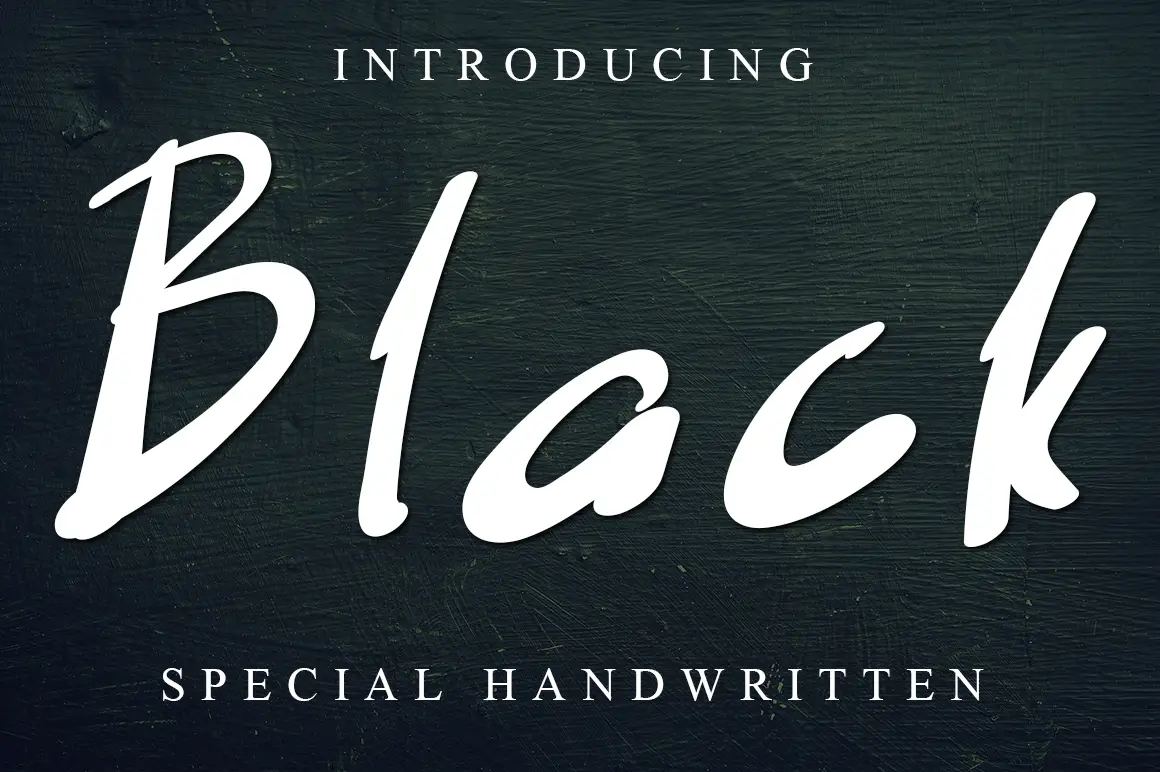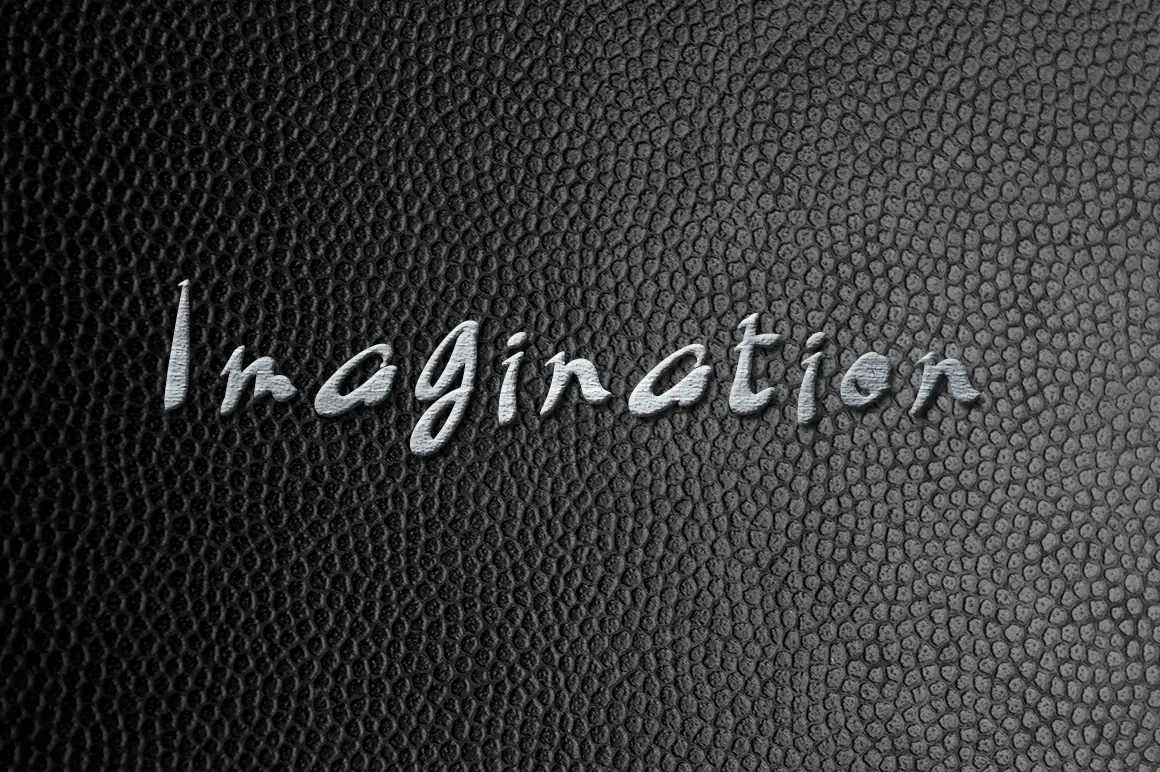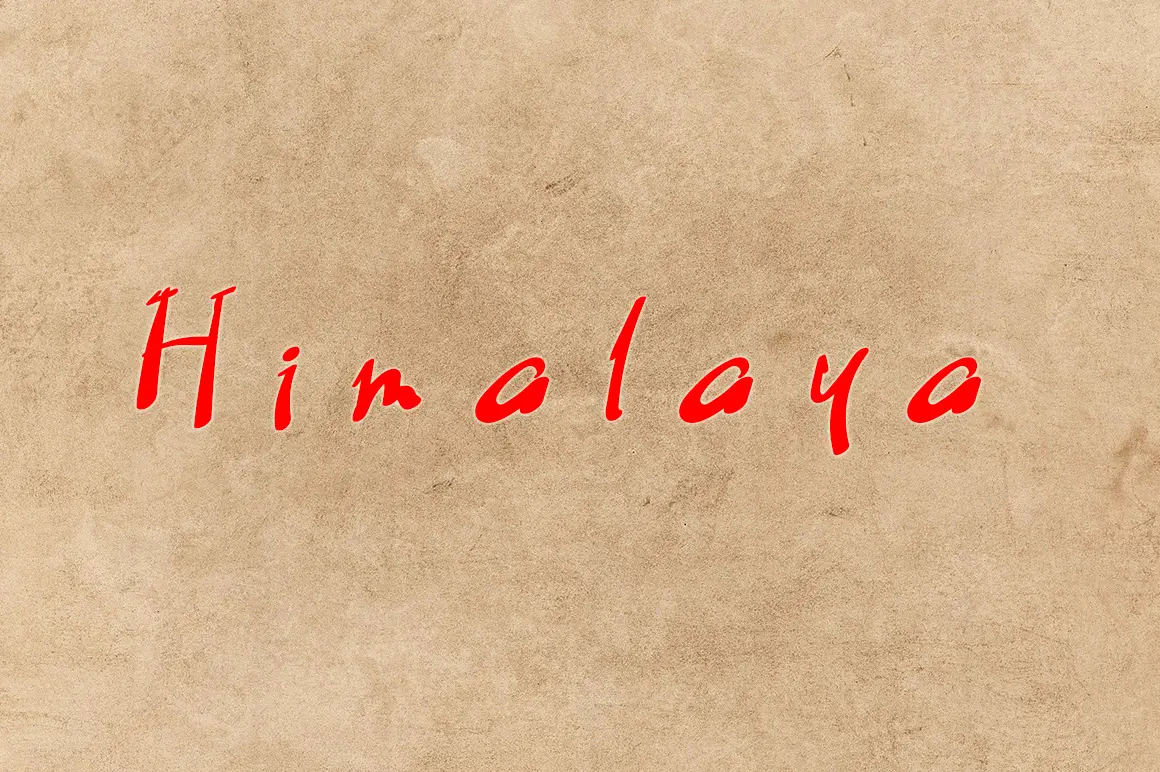
Black Script Font
The Black Script Font is a beautifully crafted typeface that embodies elegance and sophistication. With its flowing curves and stylish letterforms, this font is perfect for a variety of design applications.
• Stylish script design
• Styles: Script
• Ideal for branding, logos, invitations, and greeting cards
• Use in web design for a touch of elegance
• Great for print materials where a personal touch is desired